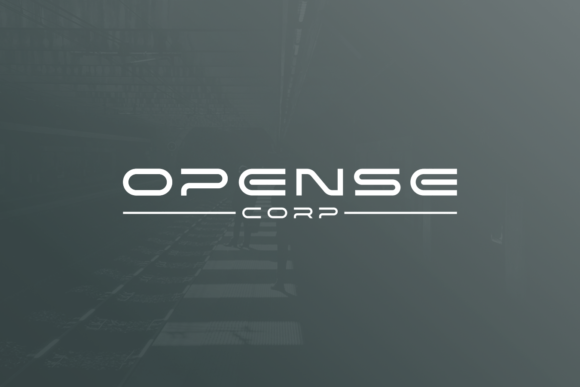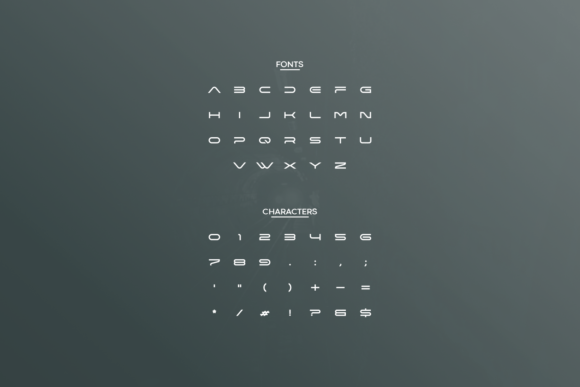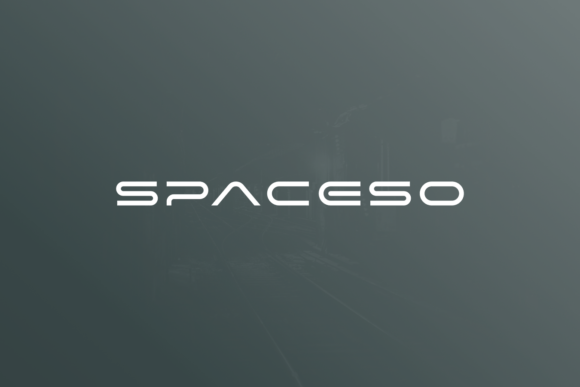
Introduction to Penrise Font
Penrise is a cool and neat display font that works great for headlines, branding, and logo designs.
Coming with a simple yet modern and elegant look, the smooth angular shape makes it look classy .
Key Features of Penrise Font
Why Choose Penrise Font?